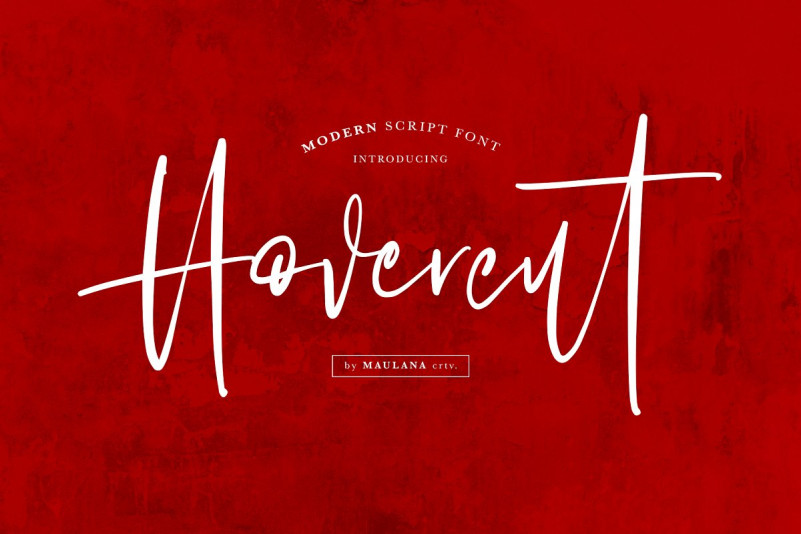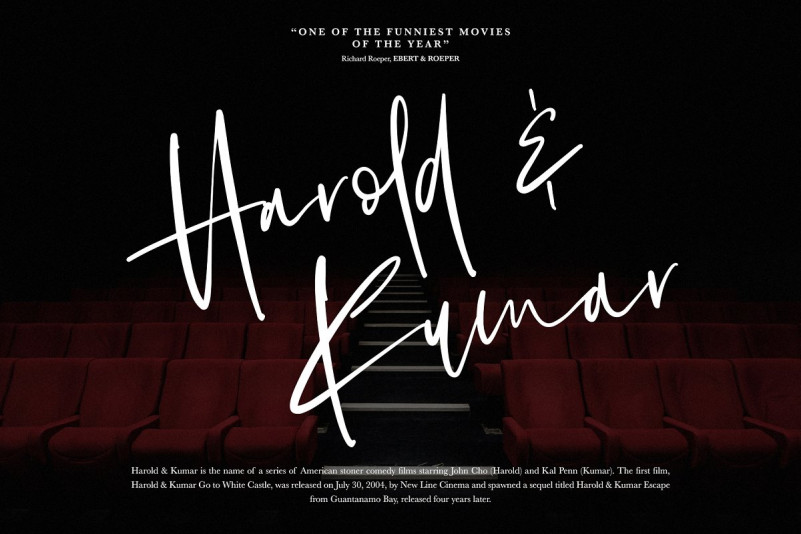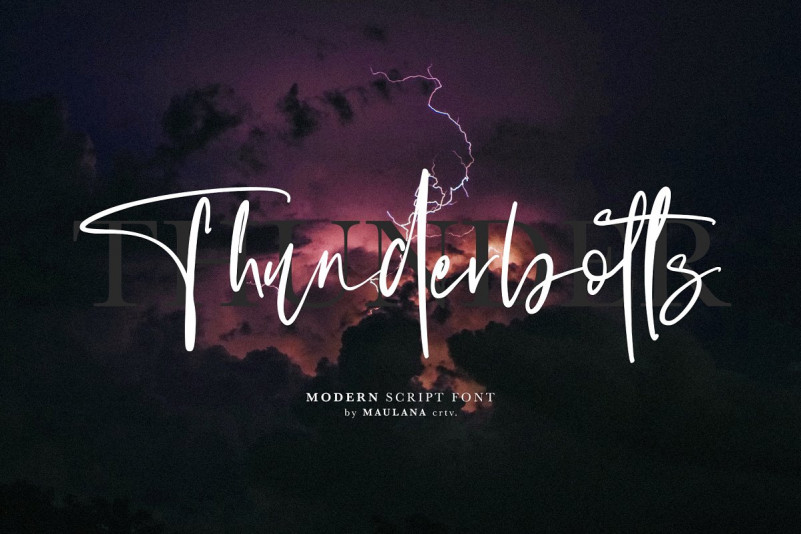
Give your designs an authentic brush handcrafted feel. “Hovercut” is perfectly suited to signature, stationery, logo, typography quotes, magazine or book cover, website header, flyer, clothing, branding, packaging design and more.